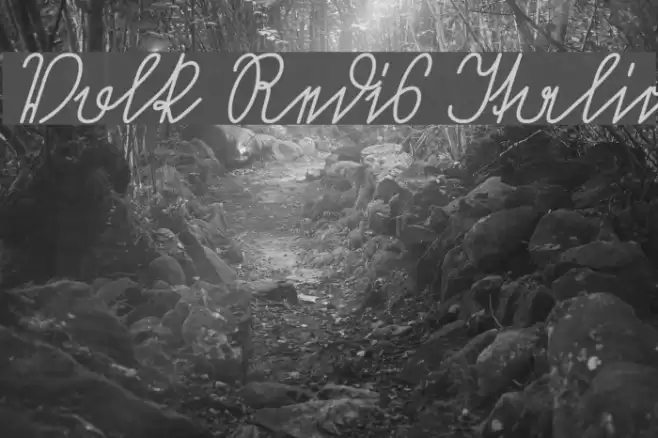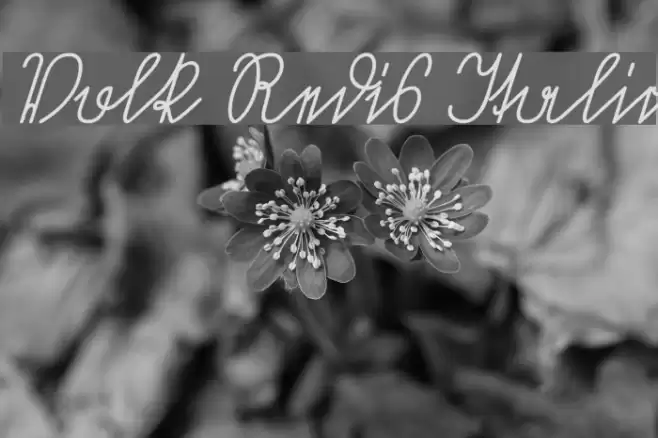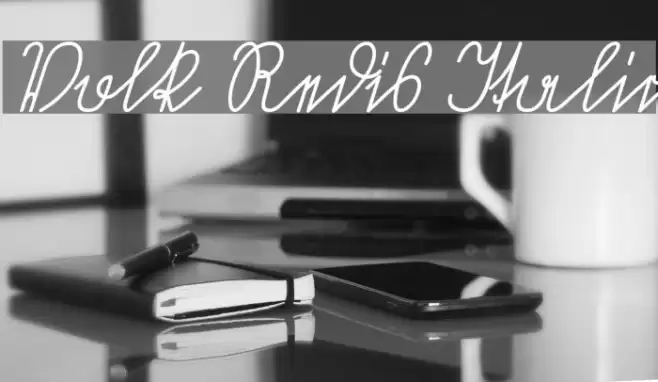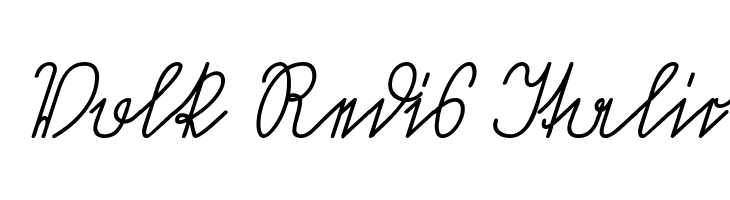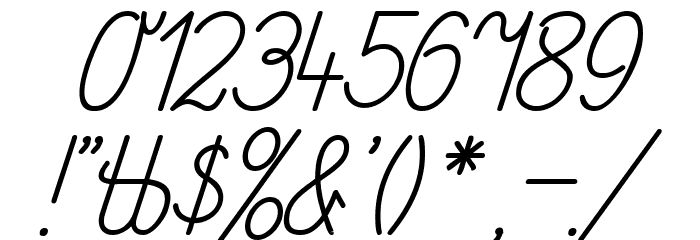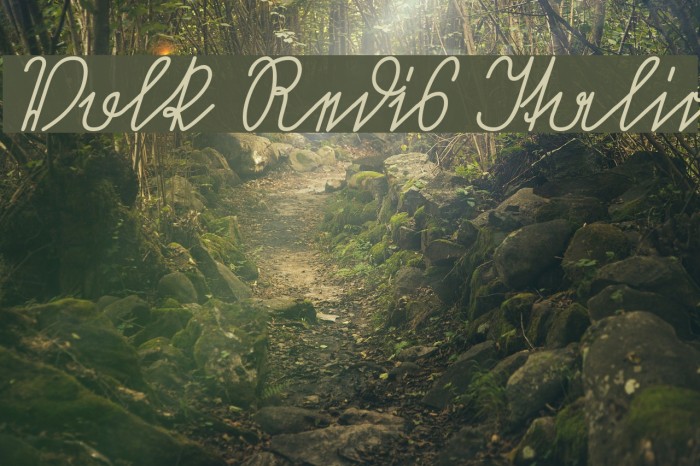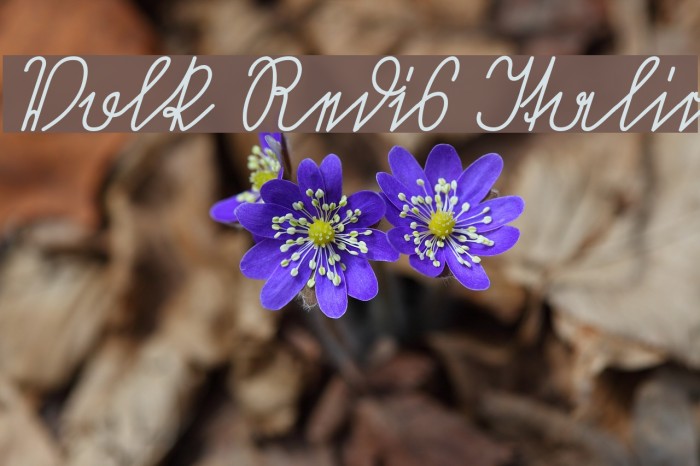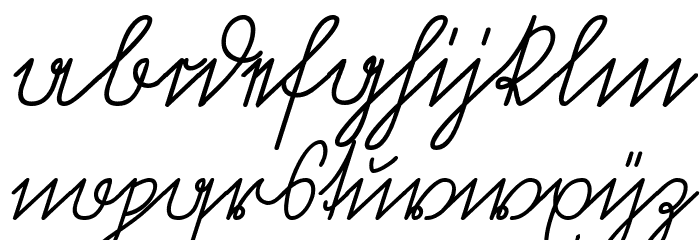
Volk Redis Italic Font
Volk Redis Italic Description
This font features a dynamic and flowing script style, characterized by its elegant and cursive letterforms. The letters are interconnected, creating a seamless and continuous flow that mimics natural handwriting. The strokes are smooth and slightly slanted, adding a sense of motion and fluidity. The uppercase letters are distinct and ornate, while the lowercase letters maintain a consistent rhythm with subtle variations. The numerals and special characters complement the overall style, maintaining the same cursive and fluid characteristics. This font exudes a sense of sophistication and creativity, making it suitable for projects that require a personal and artistic touch.
A flowing and elegant script font with interconnected cursive letterforms from Uncategorized fonts.
- Font: Volk Redis Italic
- Proposed Projects: Ideal for wedding invitations, greeting cards, personal branding, and artistic projects.
- Character Spacing: Tight
- Overall Style: Elegant
- Use Case: Logos, Invitations, Artistic projects